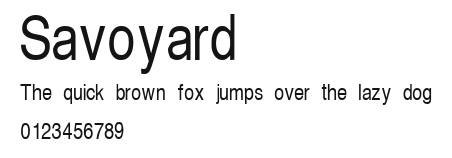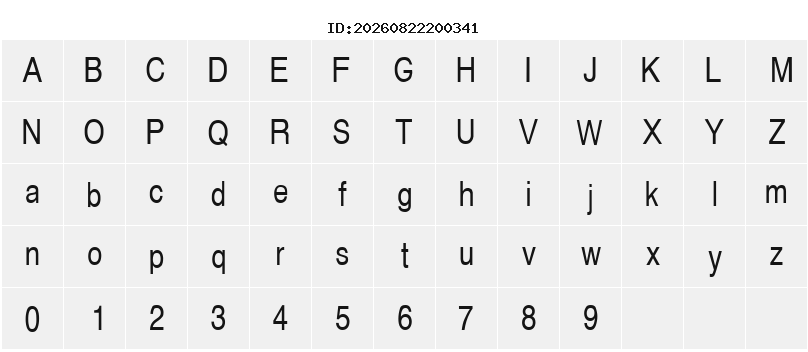
• Font Name: Savoyard
• Full Font Name: Savoyard
• PostScript Name: Savoyard
About Savoyard.ttf
Savoyard.ttf is a modern, elegant sans-serif font designed for ultimate readability and visual harmony. Perfect for branding, headlines, web design, and print materials.